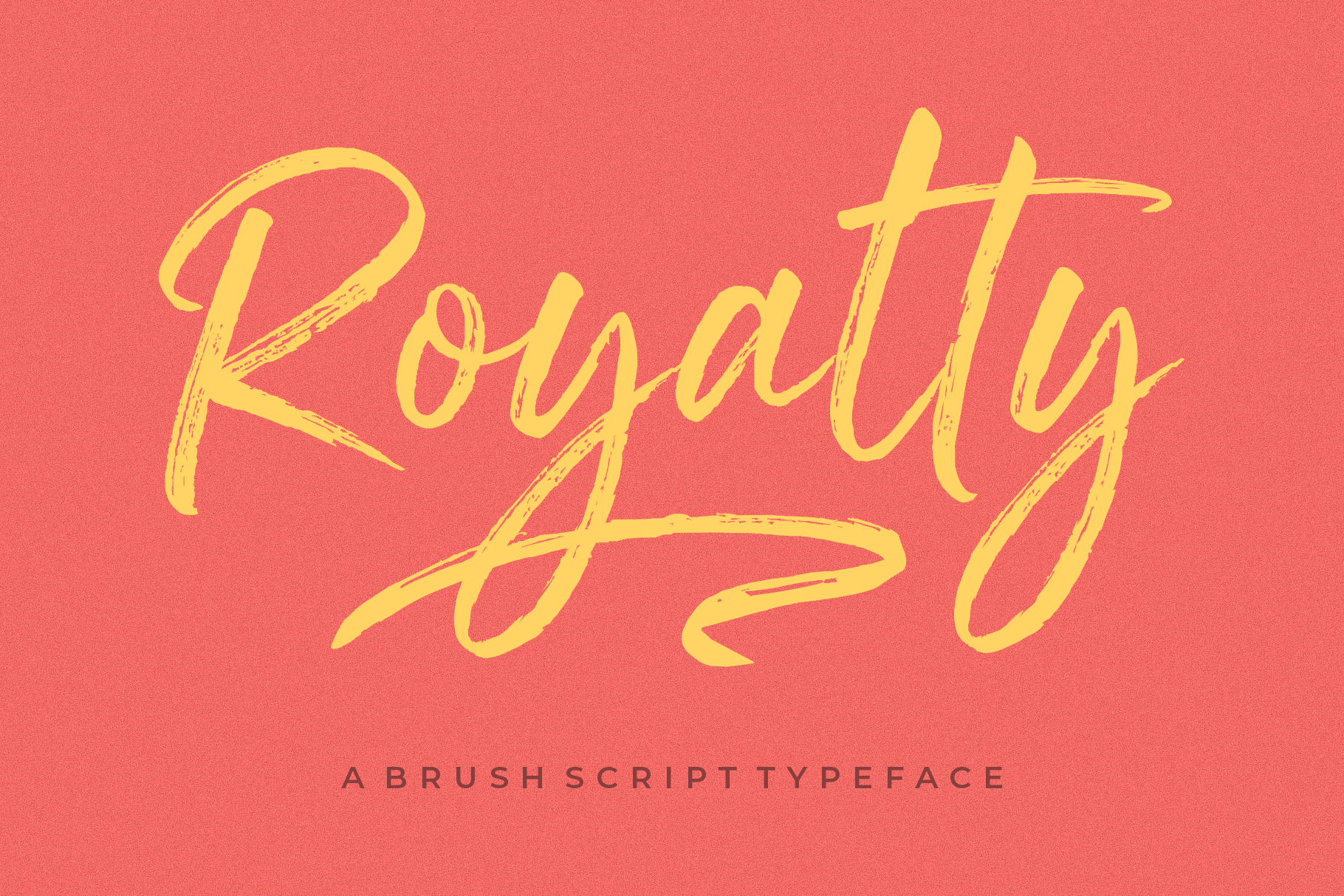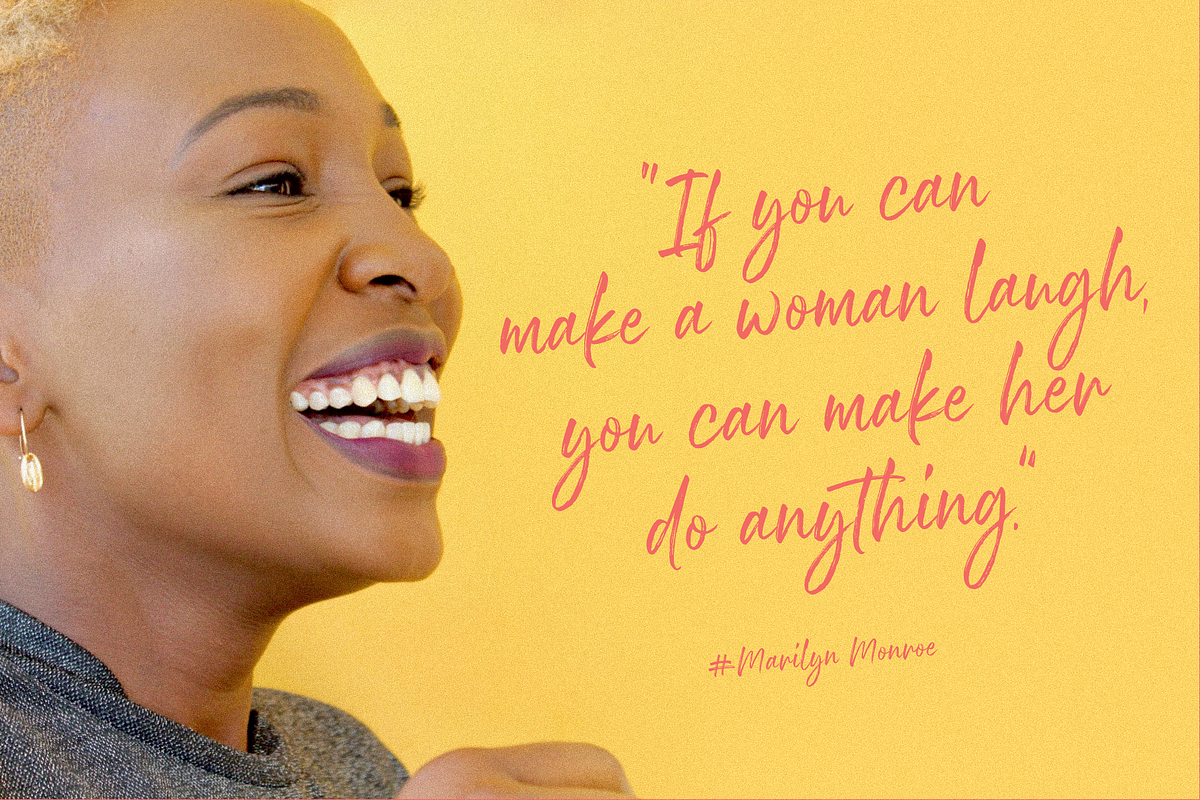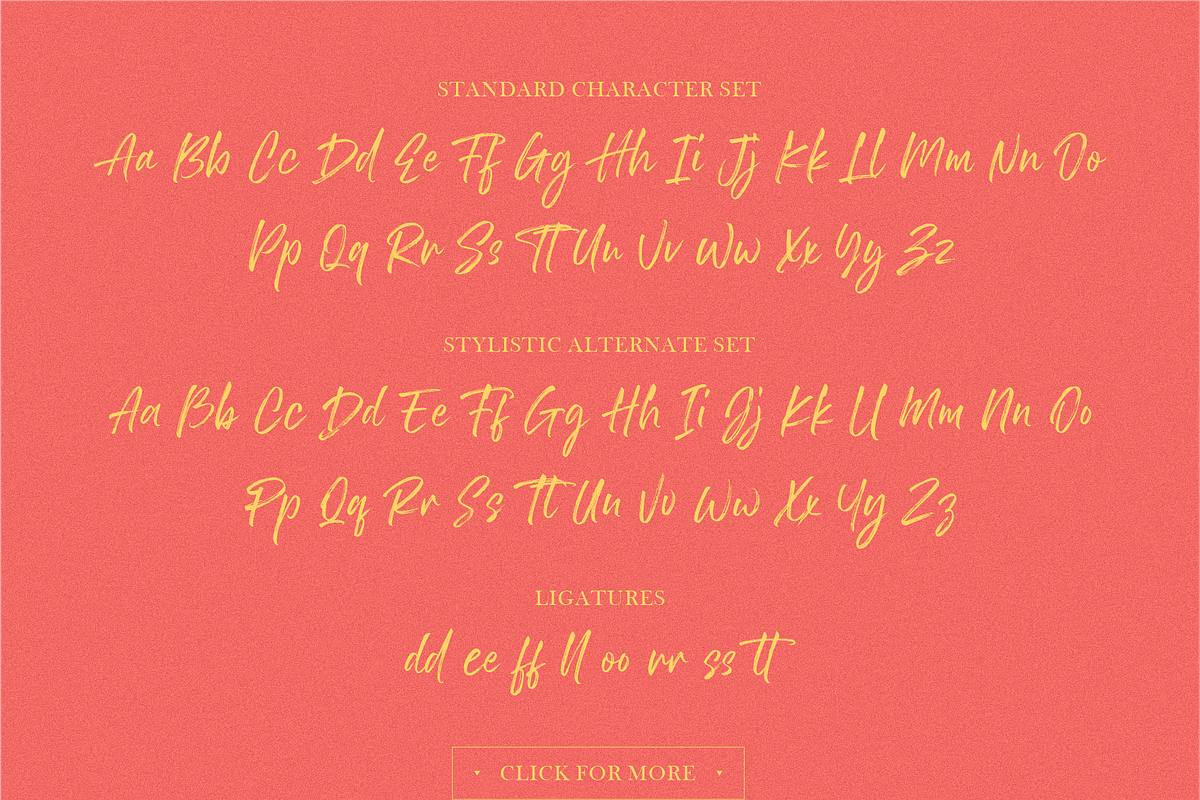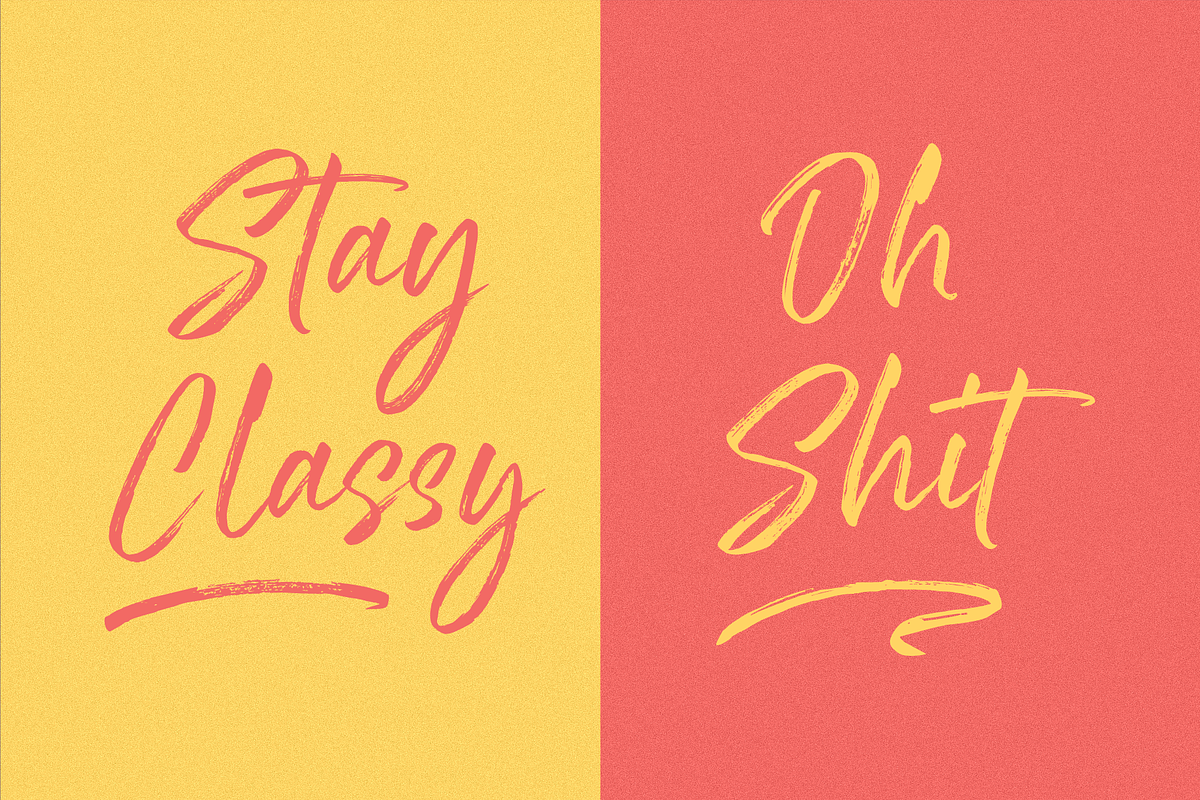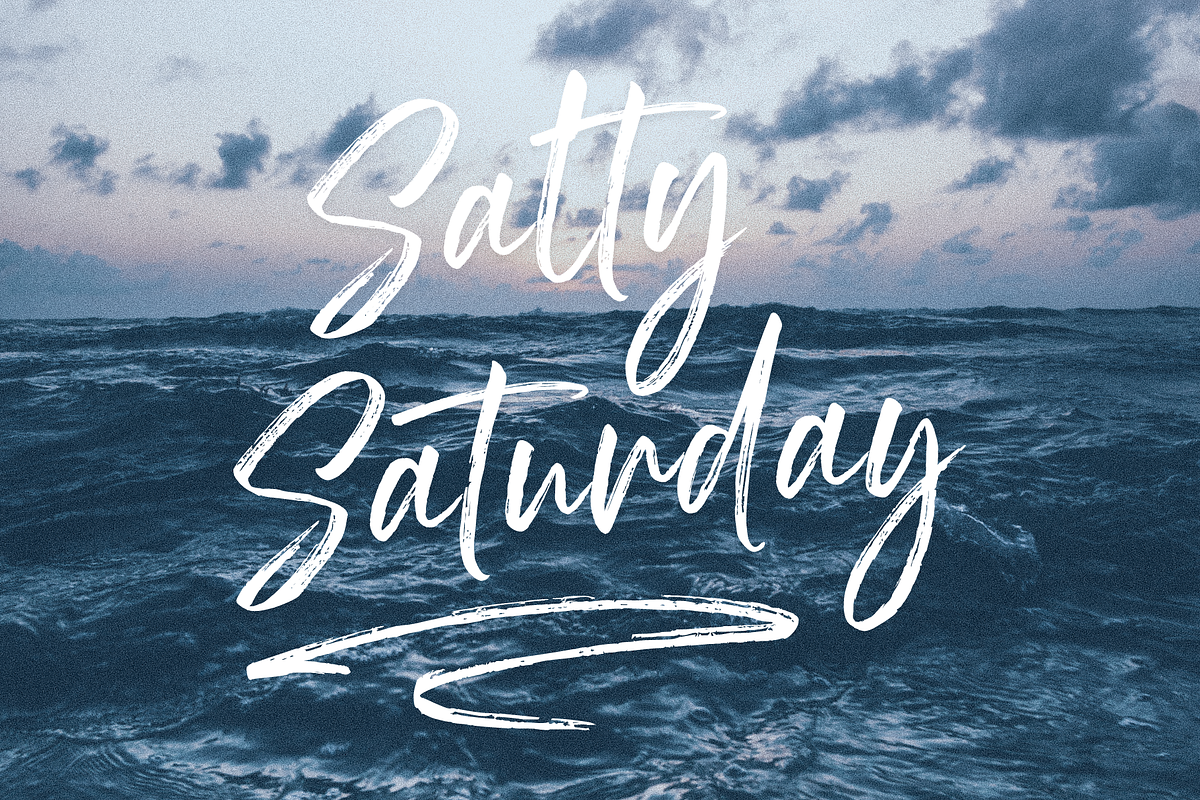
Royalty Handbrush Font
Royalty Handbrush Font! Make your designs feel natural and elegant. Royalty was designed to give the stylish look of handmade brush letters. It was made to emulate hand-drawn brush lettering, with free-flow, natural curves, and minimal effort. Though based on formal brush lettering, Royalty is not a font that sticks to the rules; it includes many thoughtful details that separate it from “normal” brush script fonts. Its unique design makes Royalty the best choice for your next creative project.
Royalty features:
- A full set of upper & lowercase characters
- A full set of alternate upper & lowercase characters
- Multilingual symbols